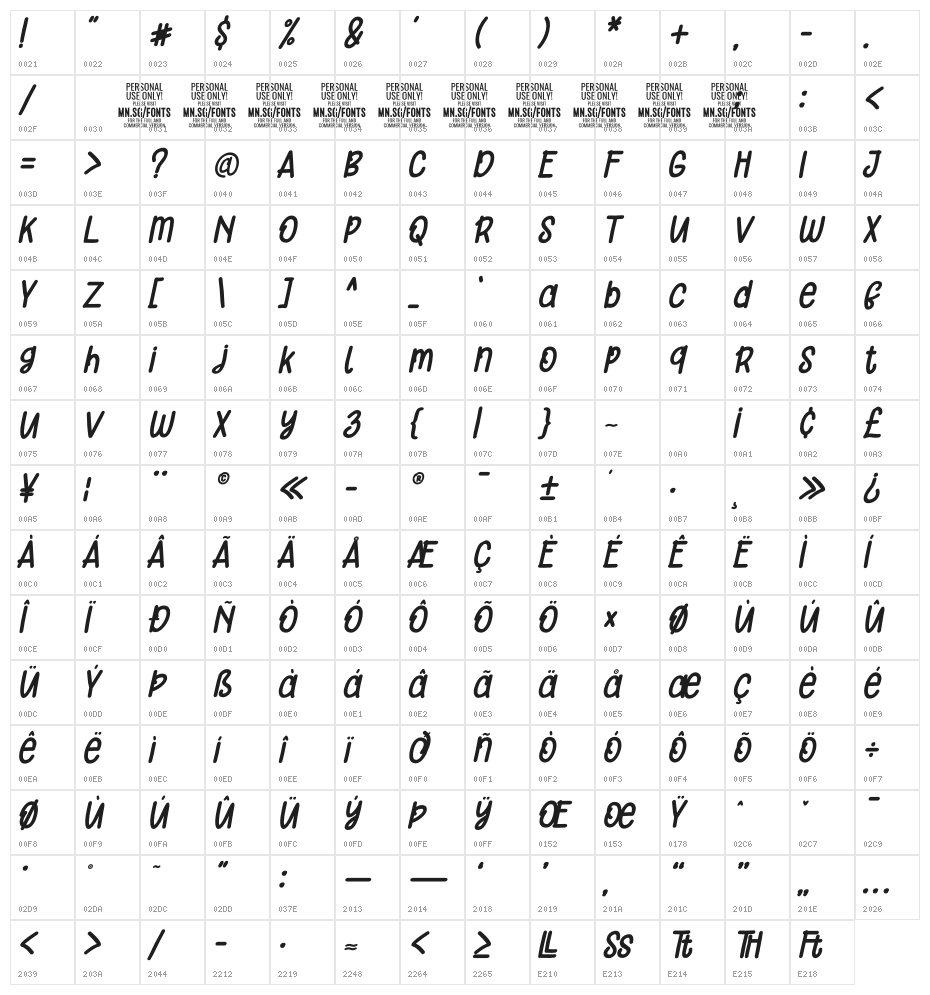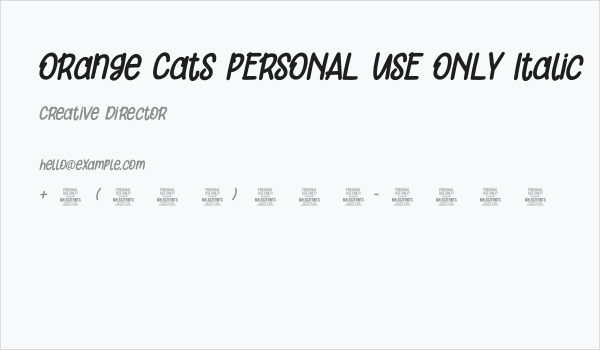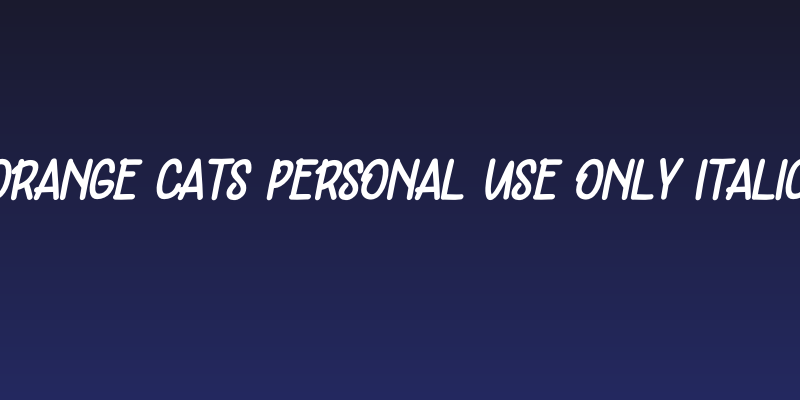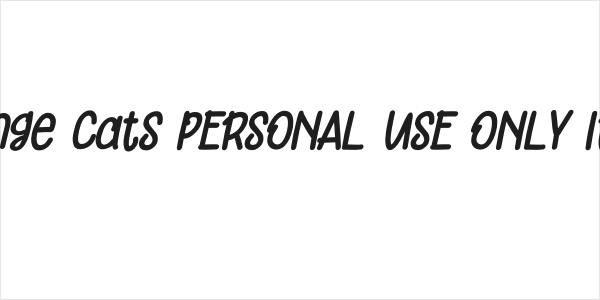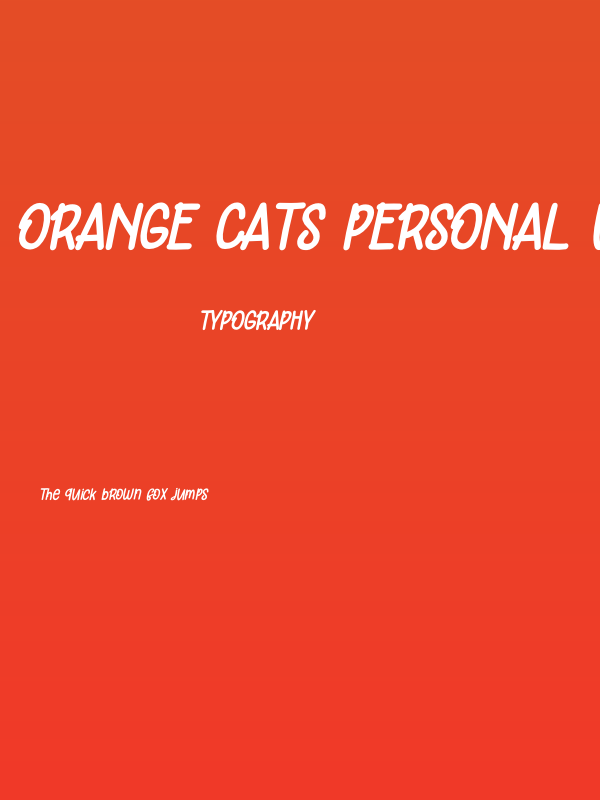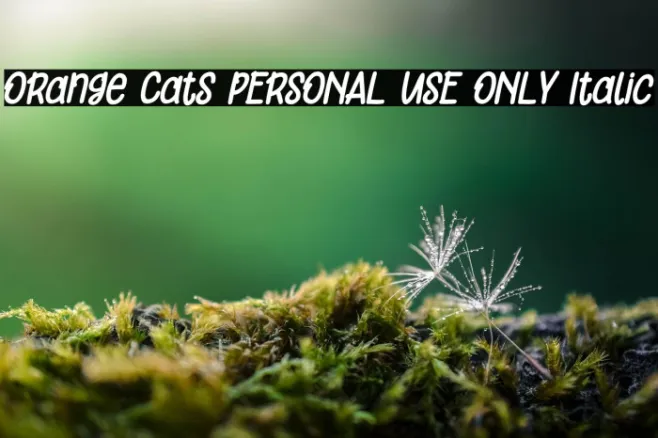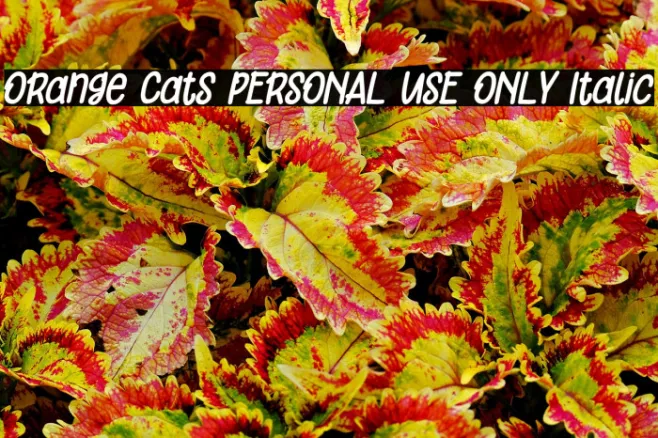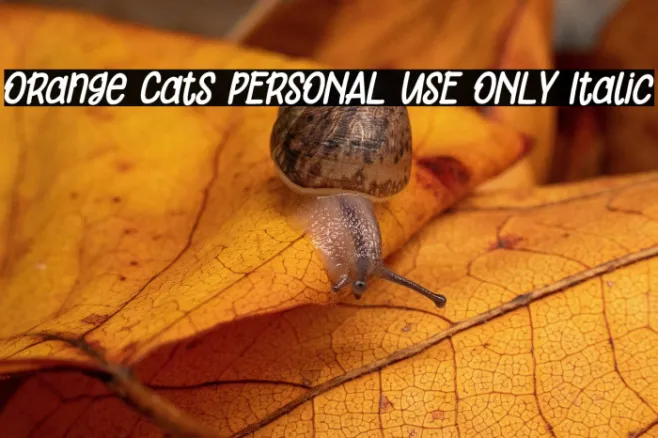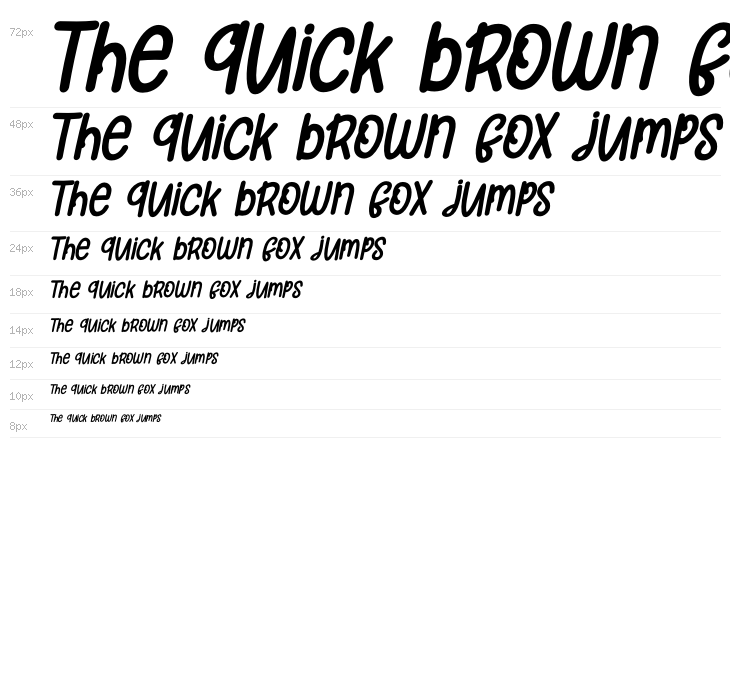
Orange Cats PERSONAL USE ONLY Italic Font
Orange Cats PERSONAL USE ONLY Italic Description
This font features a playful and dynamic script style with a bold and flowing appearance. The characters are slightly slanted, giving them an italicized look that adds a sense of movement and energy. The strokes are thick and consistent, providing a strong visual impact. The uppercase and lowercase letters maintain a cohesive style, with rounded edges and smooth curves that enhance readability. The numbers and special characters are designed to match the overall aesthetic, ensuring a uniform look across all text elements.